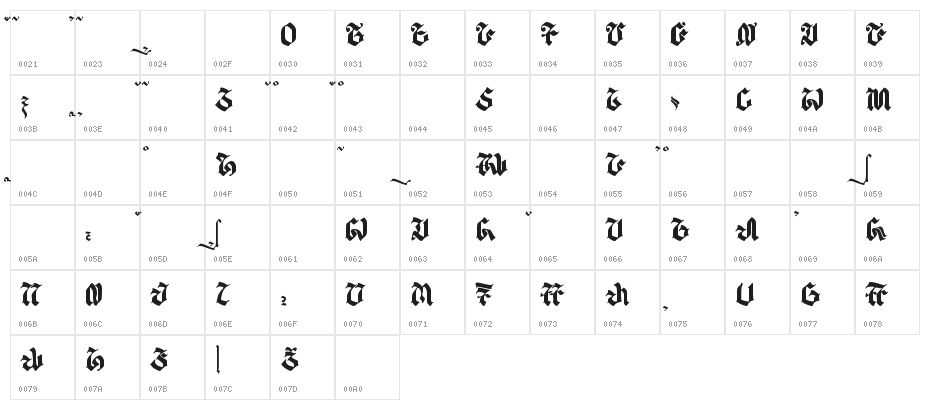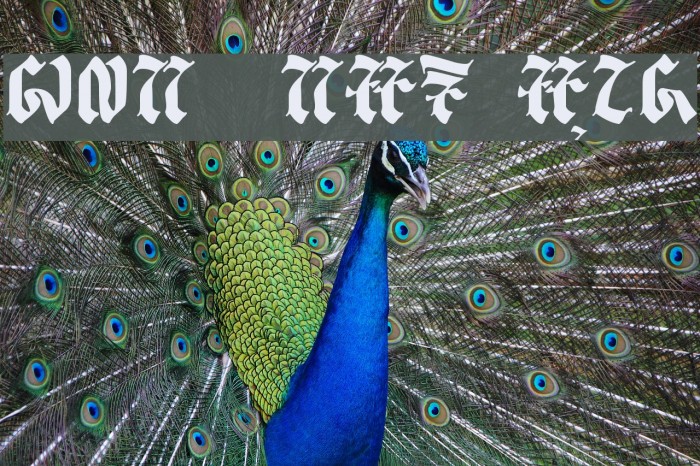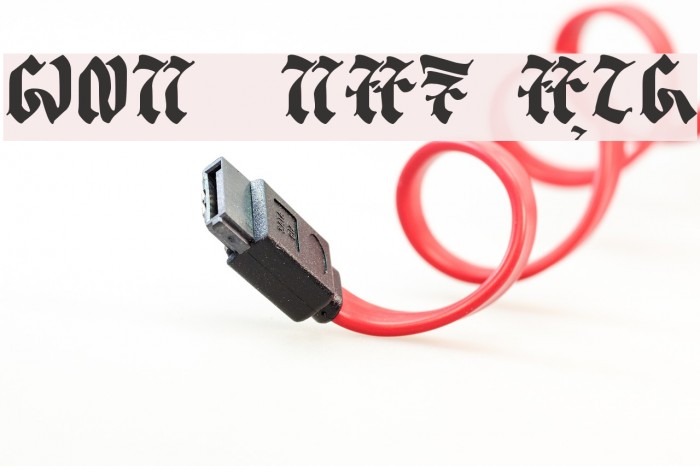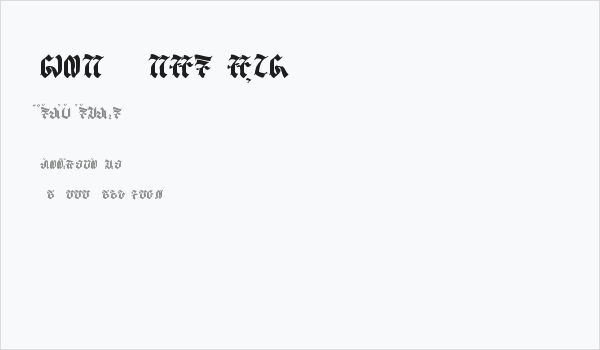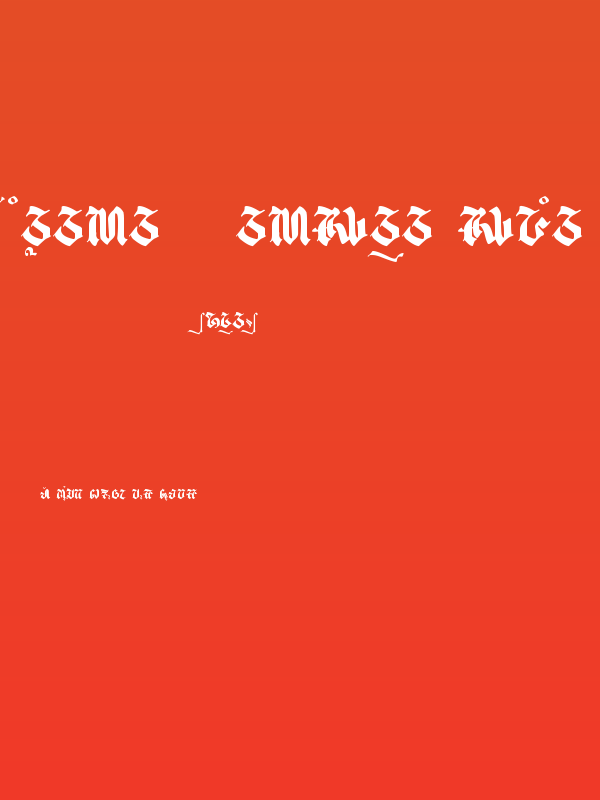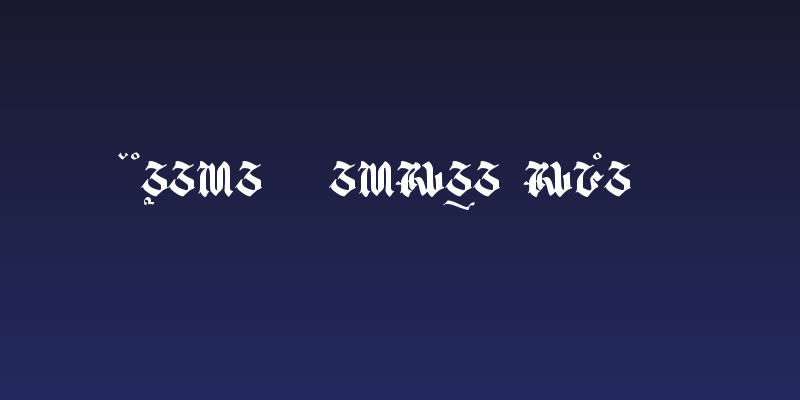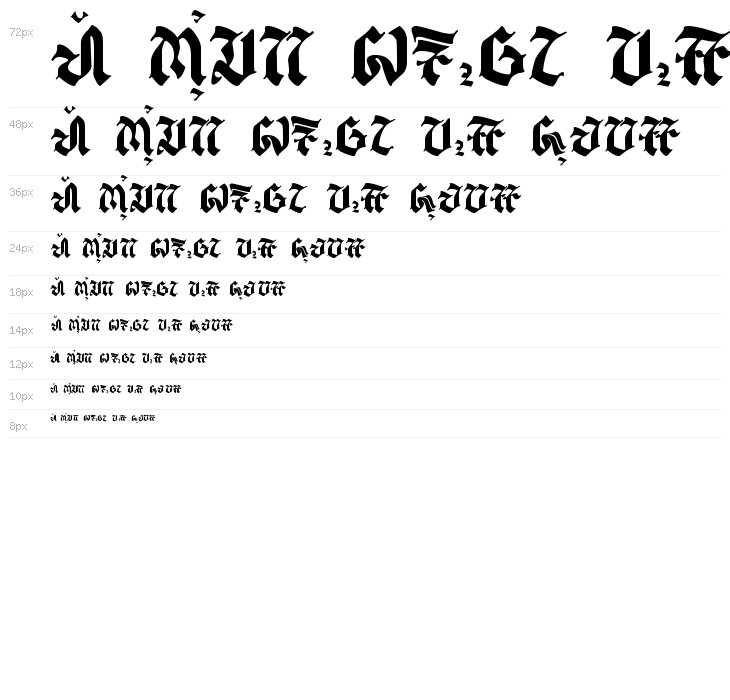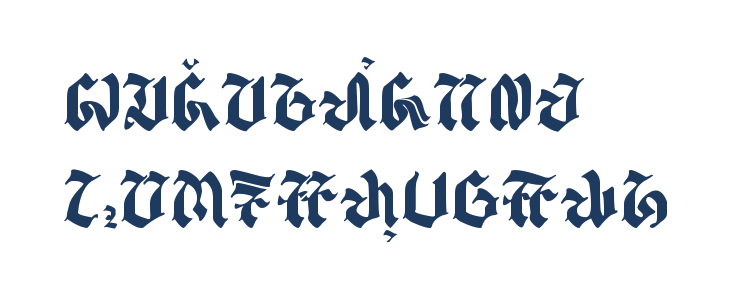
balaka - aksara sunda Font
balaka - aksara sunda Description
This font is a decorative script with a strong, bold presence, characterized by its intricate and ornate letterforms. The strokes are thick and angular, with sharp edges and elaborate flourishes that give it a distinct, historical feel. The characters are closely spaced, enhancing its dense and compact appearance. This style is reminiscent of traditional calligraphy, with a touch of modern flair, making it suitable for projects that require a dramatic and impactful visual statement.